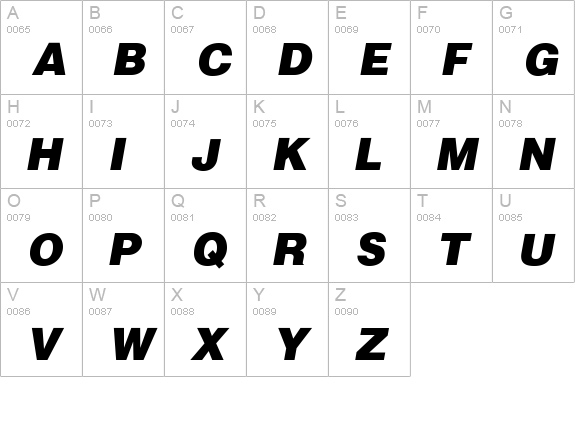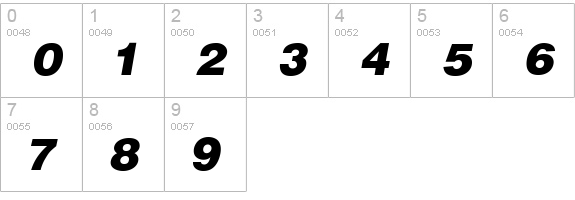
HallmarkeBlackOblique Font Details
HallmarkeBlackOblique font is a stunning display typeface that embodies elegance and sophistication. Its sleek and slanted design exudes a sense of dynamism and modernity, making it perfect for creating eye-catching headlines, logos, and branding materials. The font's bold and oblique nature adds a touch of uniqueness and intrigue to any design. It effortlessly captures attention and demands to be noticed. Whether used in print or digital media, HallmarkeBlackOblique font stands out with its strong presence and captivating appeal. With its smooth curves and sharp edges, this font strikes a balance between classic and contemporary aesthetics. It effortlessly blends tradition with innovation, making it suitable for a wide range of design projects. From fashion magazines to high-end advertisements, HallmarkeBlackOblique font elevates the visual impact of any composition. One of the best things about HallmarkeBlackOblique font is that it is free to download. You can easily access this exceptional typeface at FontsMarket.com. Its availability ensures that designers and creatives can add a touch of elegance to their projects without worrying about any additional costs. So, if you're looking for a font that exudes sophistication, elegance, and modernity, HallmarkeBlackOblique is the perfect choice. Its striking design and free accessibility make it a valuable addition to any designer's toolkit. Download it today from FontsMarket.com and let your creativity soar to new heights.